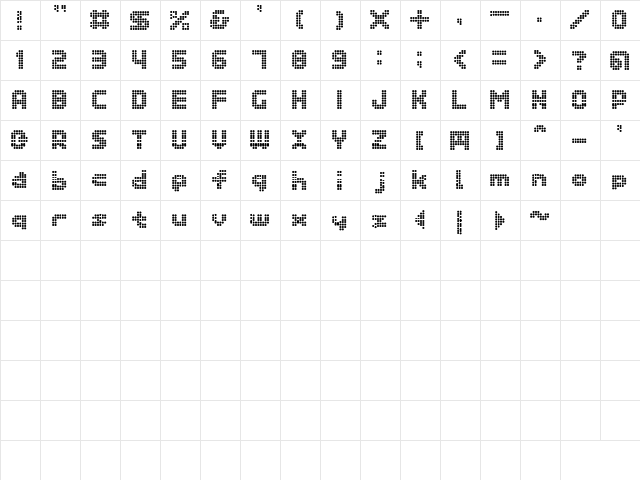
MW POLKA Regular Font Preview
MW POLKA Regular
Design Context for MW POLKA Typeface
MW POLKA is a composed and adaptable typeface that performs quietly and consistently across a wide range of design contexts.